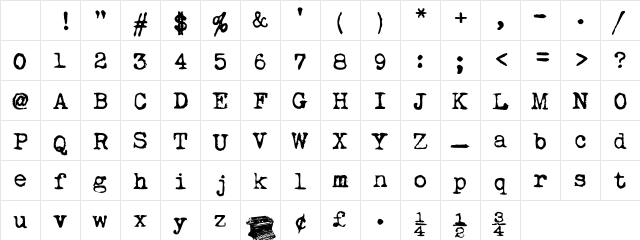
My Underwood echoes the hand-painted signage and woodblock typography of the American frontier, with a warm, rugged personality.
Font Pairing: Combine My Underwood with a simple slab or neutral sans - period-accurate companions reinforce the vintage feel without competing for attention.
Pro Tip: Use My Underwood for short, impactful bursts of text - it shines in poster headlines and product names rather than extended copy.